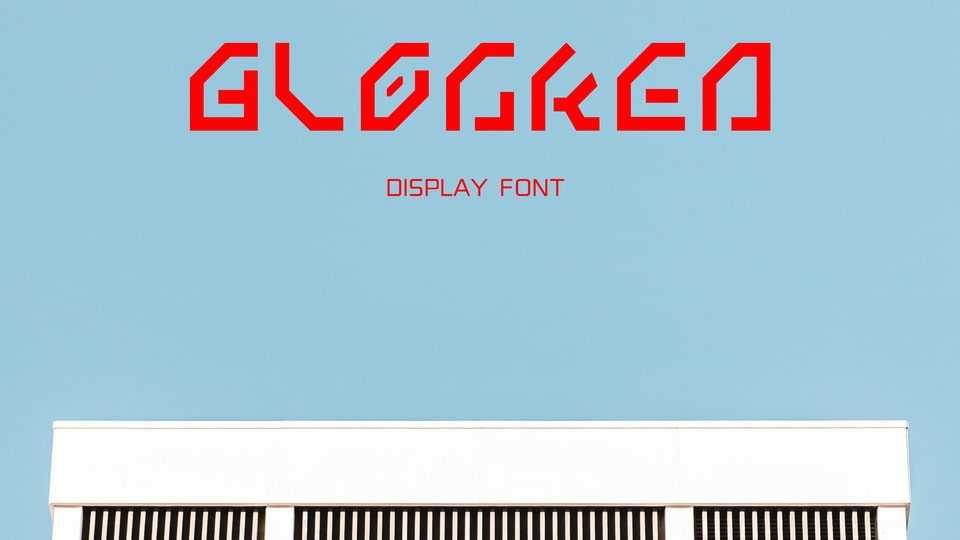
Download Blocked font, a bold and edgy display typeface inspired by geometry and architecture. With its extreme cuts, sharp angles Blocked font perfect for logos, branding projects, headlines, posters and anything you want to give an impactful look.